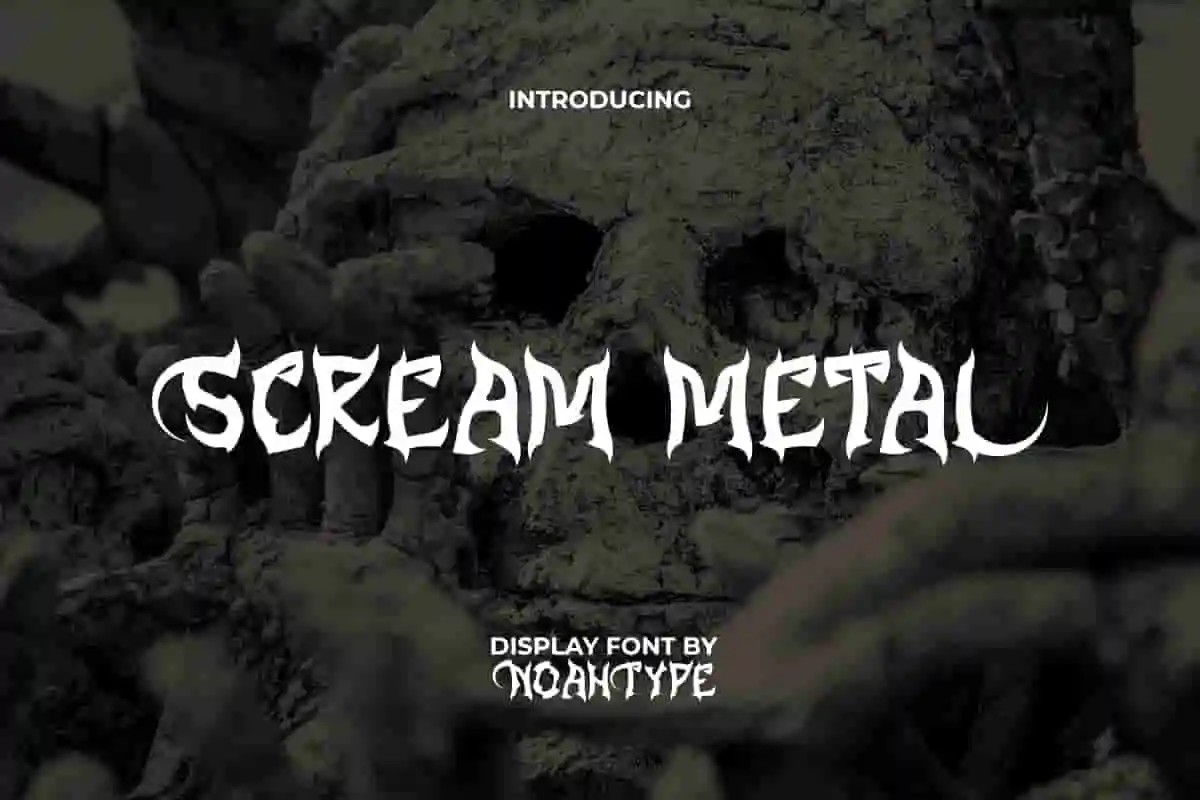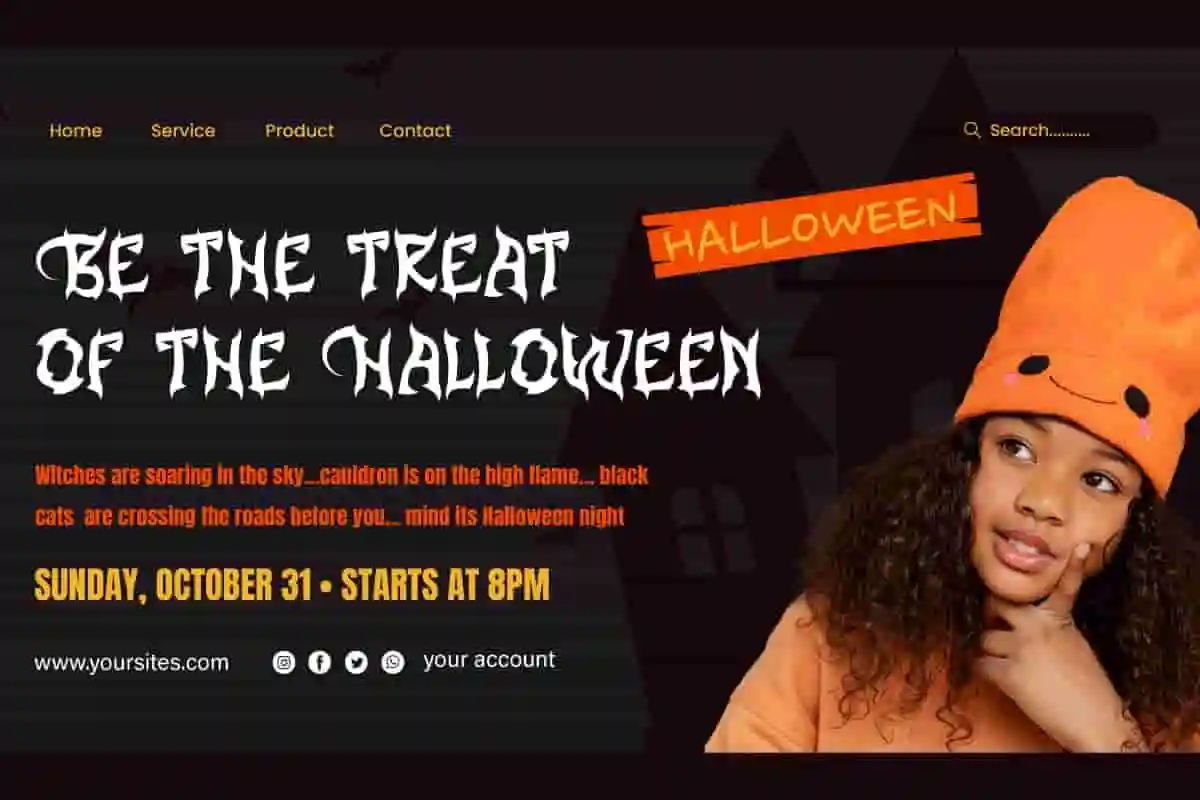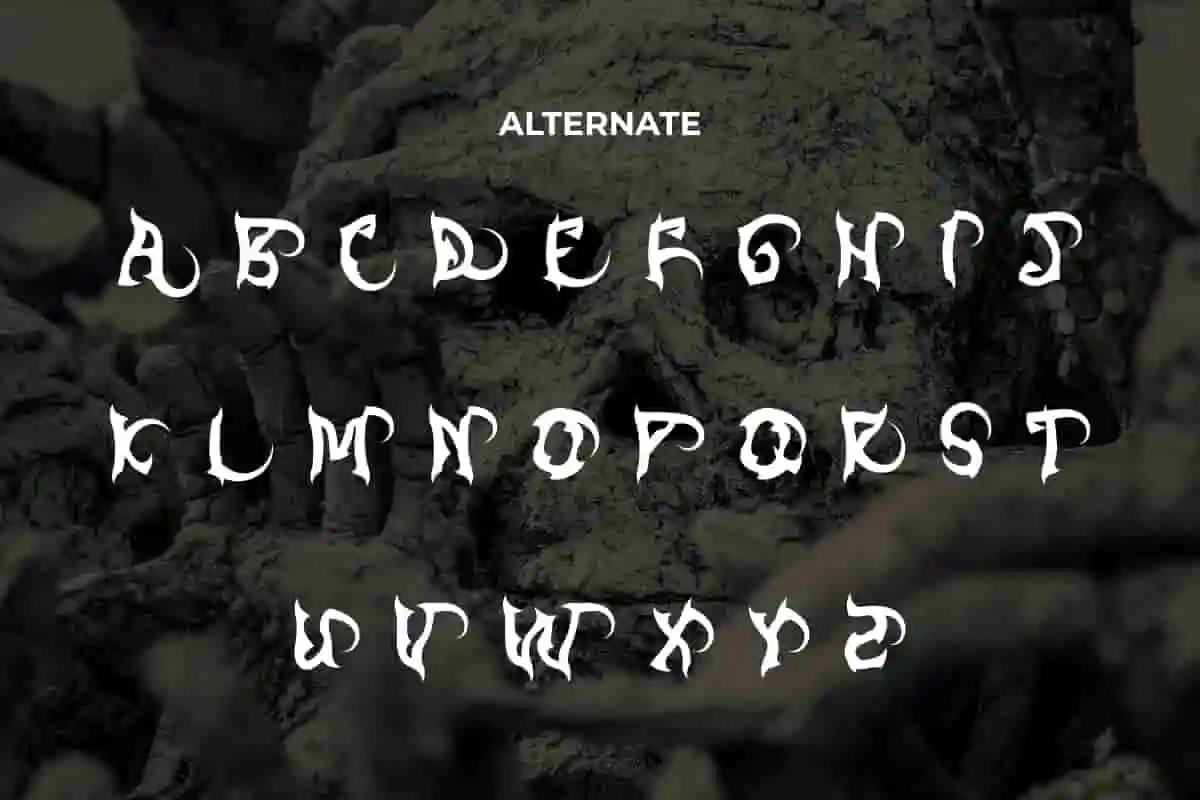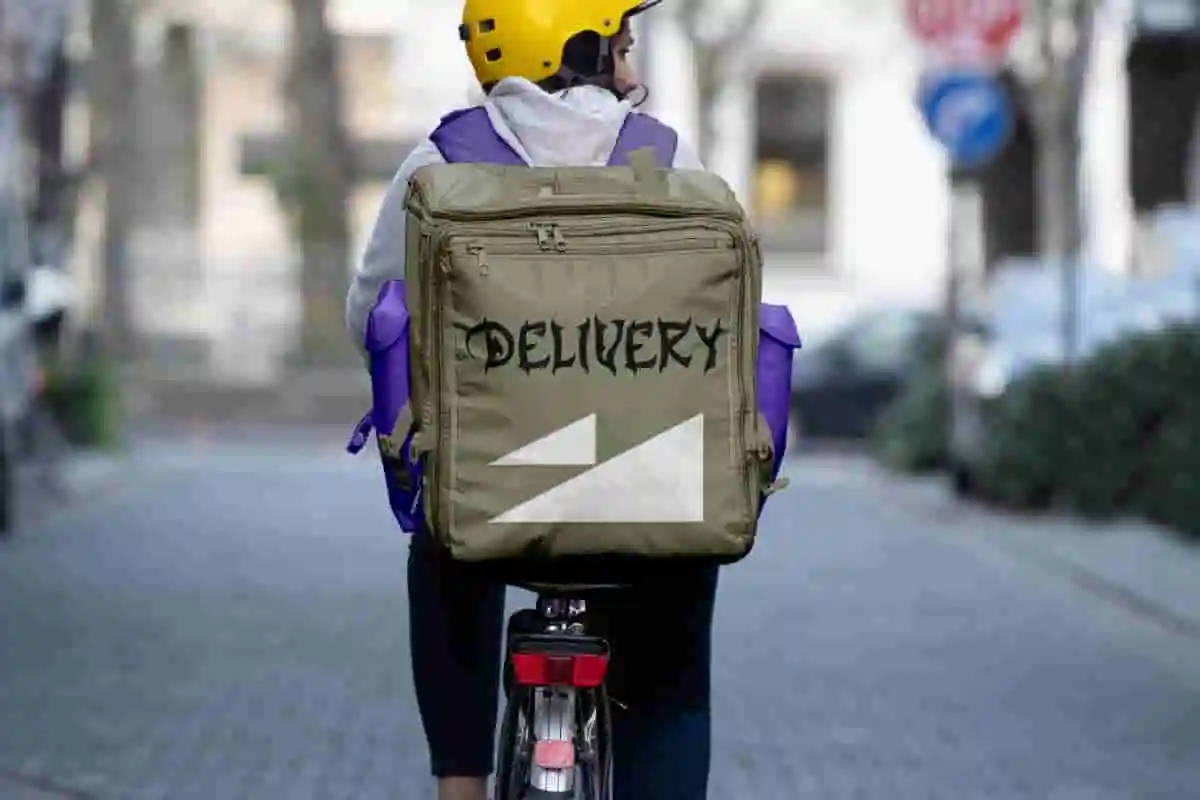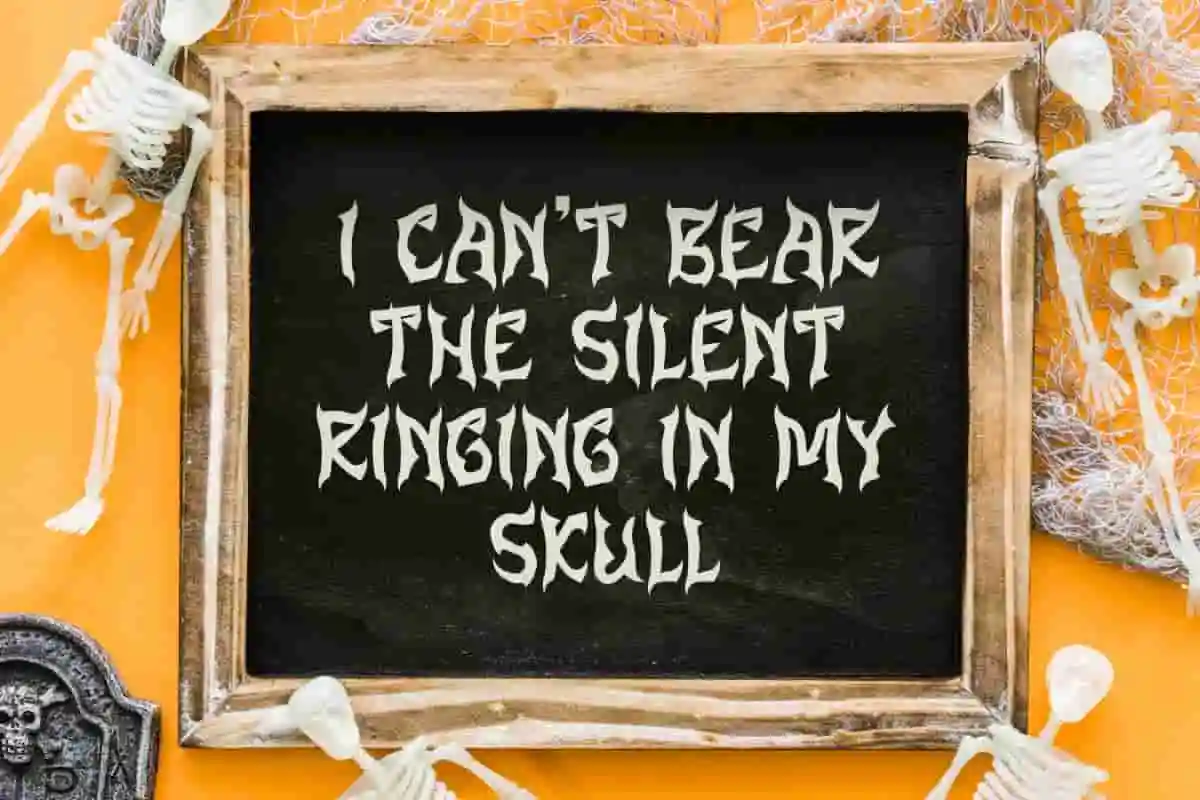
Scream Metal Font is a black metal hardrock display font with a sharp , horror and Halloween black metal style by NoahType. This font can deliver a perfect spooky impression with the concept it has. It will be perfect for any designs, such as cover, poster, custom design, signage, brand image, invitation, stationery, label, marketing material, printing, product packaging, quotes, website, and many more!
Scream Metal Font includes full set of ALL CAPS for Uppercase and Lowercase Basic Characters, Numerals, Punctuation, and Symbol. This font will make your design looks startle and also a perfect choice for many industries, such as fashion, game, movie, event or festival, barber shop, accessories, advertising, art, café, printing, publishing, etc.